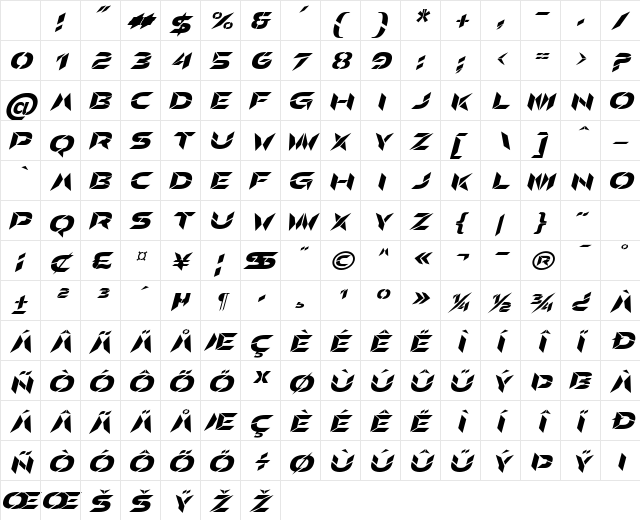
Complete Crypto Hunter Slant Italic glyph index. Displaying only characters natively supported by Crypto Hunter Slant Italic font.
Crypto Hunter Slant is a composed and adaptable typeface that performs quietly and consistently across a wide range of design contexts. The slanted form adds forward momentum and visual energy.
Pro Tip: Use Crypto Hunter Slant for emphasis, pull quotes, and subheadings where its slanted energy can add rhythm to the layout.